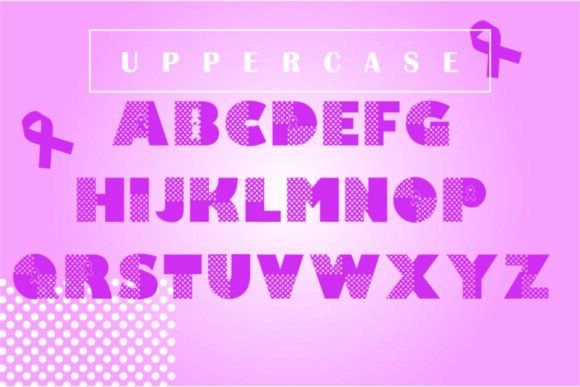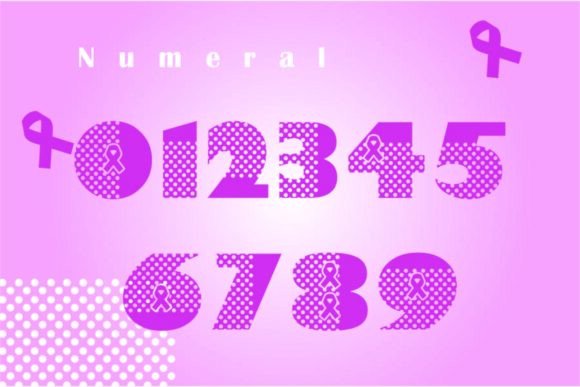
Introducing Dotify Font: The Ultimate Decorative Font for Modern Designers
Are you tired of using the same old fonts for your designs? Look no further than Dotify Font, a bold and modern decorative font that’s perfect for making a statement. With its playful dotted pattern and awareness ribbon theme, Dotify is sure to grab attention and add a touch of personality to any project.
What Makes Dotify Font So Unique?
Dotify Font is unlike any other font on the market. Its unique halftone texture adds depth and dimension to any design, making it perfect for posters, social campaigns, logos, branding, and creative layouts. The font’s playful dotted pattern and awareness ribbon theme give it a fun and stylish vibe that’s sure to resonate with designers and crafters alike.
The Perfect Font for Modern Designers
Dotify Font is designed to be versatile and easy to use, making it perfect for both print and digital projects. Whether you’re creating a poster, social media graphic, or branding materials, Dotify is the perfect choice. Its dynamic and modern look is sure to grab attention and leave a lasting impression.
Great for Awareness and Charity Campaigns
Dotify Font is particularly well-suited for awareness and charity campaigns. Its awareness ribbon theme and playful dotted pattern make it a natural fit for campaigns focused on social causes. The font’s bold and modern design is sure to grab attention and convey a sense of urgency, making it perfect for campaigns that need to make a statement.
Dotify Font is a versatile font that can be used for a wide range of design projects, including:
- Posters and event banners
- Greeting cards and packaging
- Modern branding and typography projects
Why Choose Dotify Font?
There are many reasons why designers and crafters should choose Dotify Font for their next project. Here are just a few:
- Unique and eye-catching design: Dotify Font’s playful dotted pattern and awareness ribbon theme make it a standout font that’s sure to grab attention.
- Versatile and easy to use: Dotify Font is designed to be easy to use and versatile, making it perfect for both print and digital projects.
- Perfect for modern designers: Dotify Font’s dynamic and modern look is sure to appeal to designers who are looking for a font that’s stylish and on-trend.
Dotify Font is a bold and modern decorative font that’s perfect for designers and crafters who are looking for a unique and eye-catching font. With its playful dotted pattern and awareness ribbon theme, Dotify is sure to grab attention and add a touch of personality to any project. Whether you’re working on a poster, social media graphic, or branding materials, Dotify Font is the perfect choice.